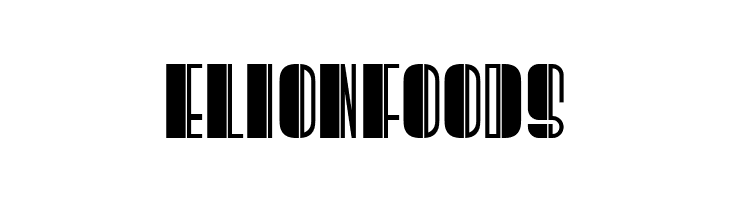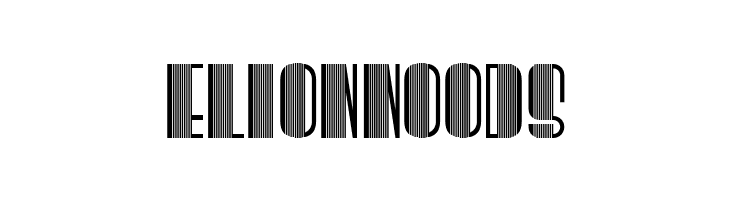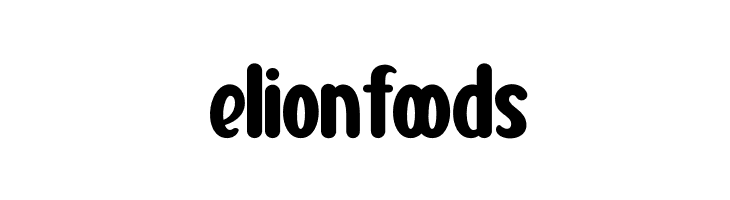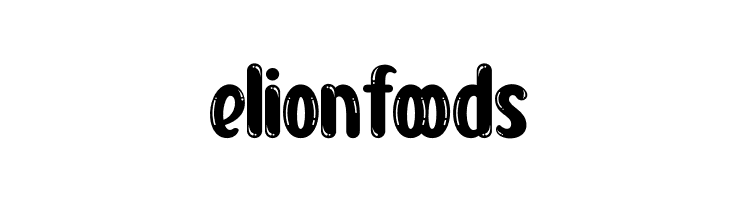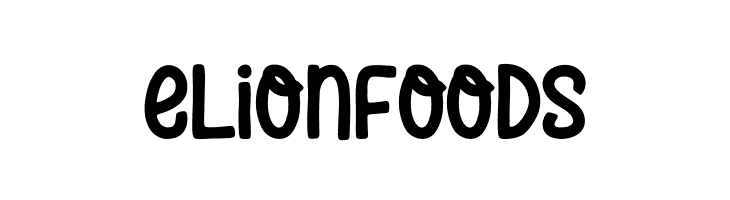
A bold, playful font with a retro, cartoon-like style.
A playful, bold font with a retro, cartoonish style.
A bold, playful font with a shadow effect and rounded, thick characters.
A playful, bold, and rounded font with a whimsical, hand-drawn style.
A bold, geometric font with high contrast and playful retro elements.
A bold, retro font with a shadow effect, perfect for vintage-themed designs.
A bold, expressive handwritten font with dynamic strokes and playful curves.
A bold, high-contrast font with a modern, geometric style.
A bold, geometric font with vertical line patterns for a dynamic look.
A bold, playful font with rounded, shadowed letters for a lively retro feel.